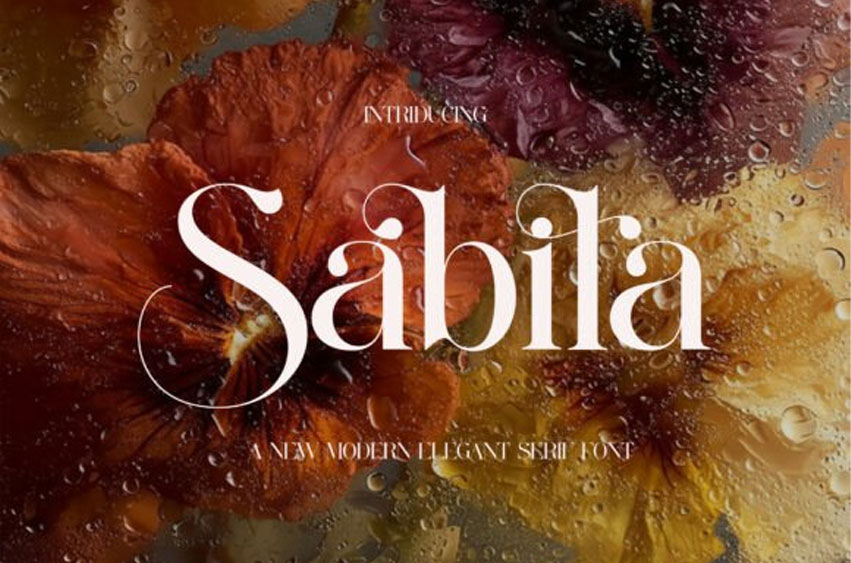
Sabila Font
Sabila Font is an ethereal and flowing modern, elegant serif font that evokes a sense of delicate, organic beauty and high-end refinement in its typography design.
This unique typeface features stunning, elongated swashes and gracefully curved terminals that extend from the baseline, giving its glyphs a striking, sophisticated, and slightly handwritten feel. The combination of classic serif structure with these elegant, fluid accents makes Sabila an exceptional choice for luxury wedding stationery, fine art branding, cosmetic packaging, and any project that requires a soft yet powerful display font. It is a timeless and memorable typography asset that perfectly conveys prestige and romantic elegance.